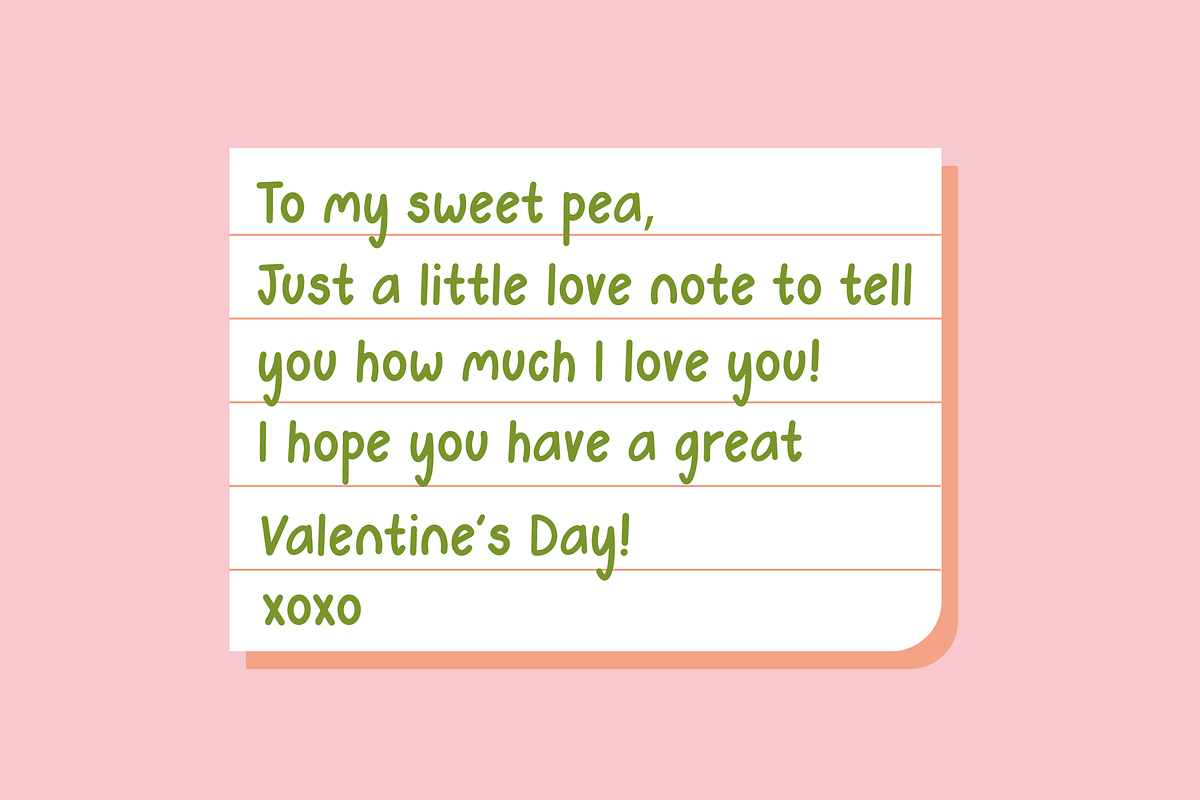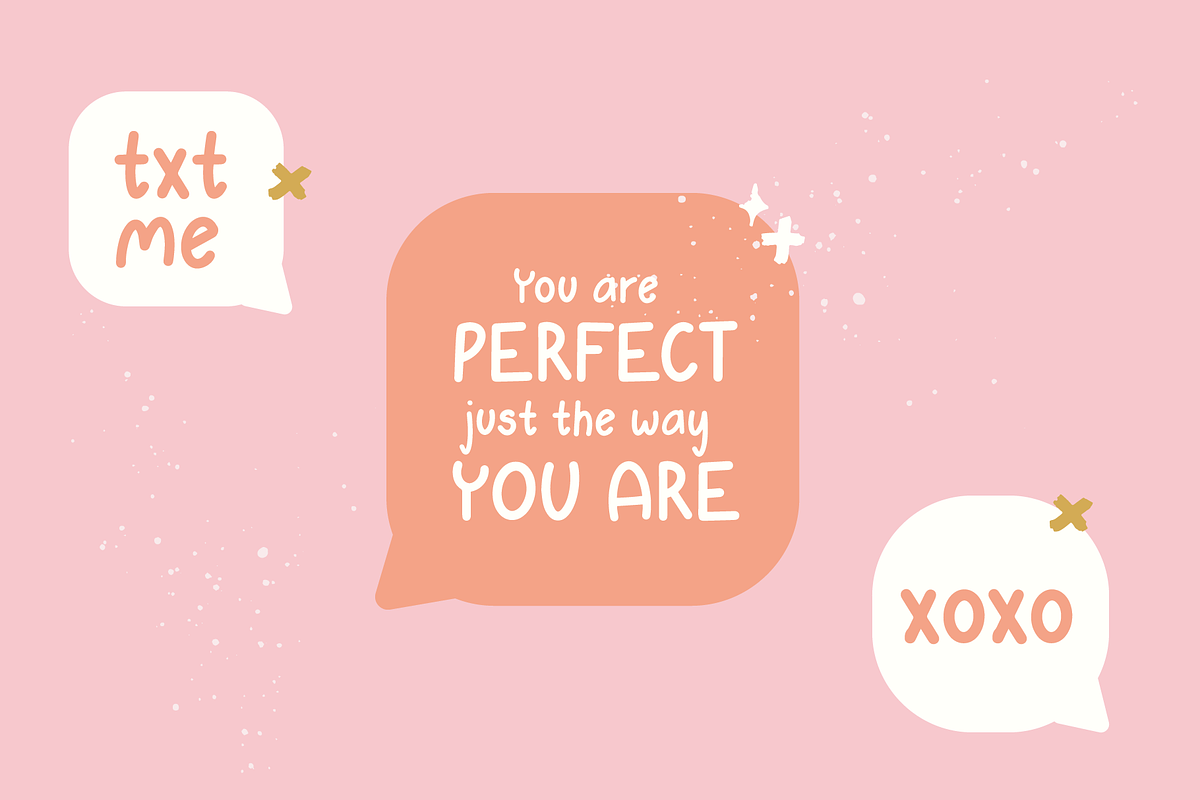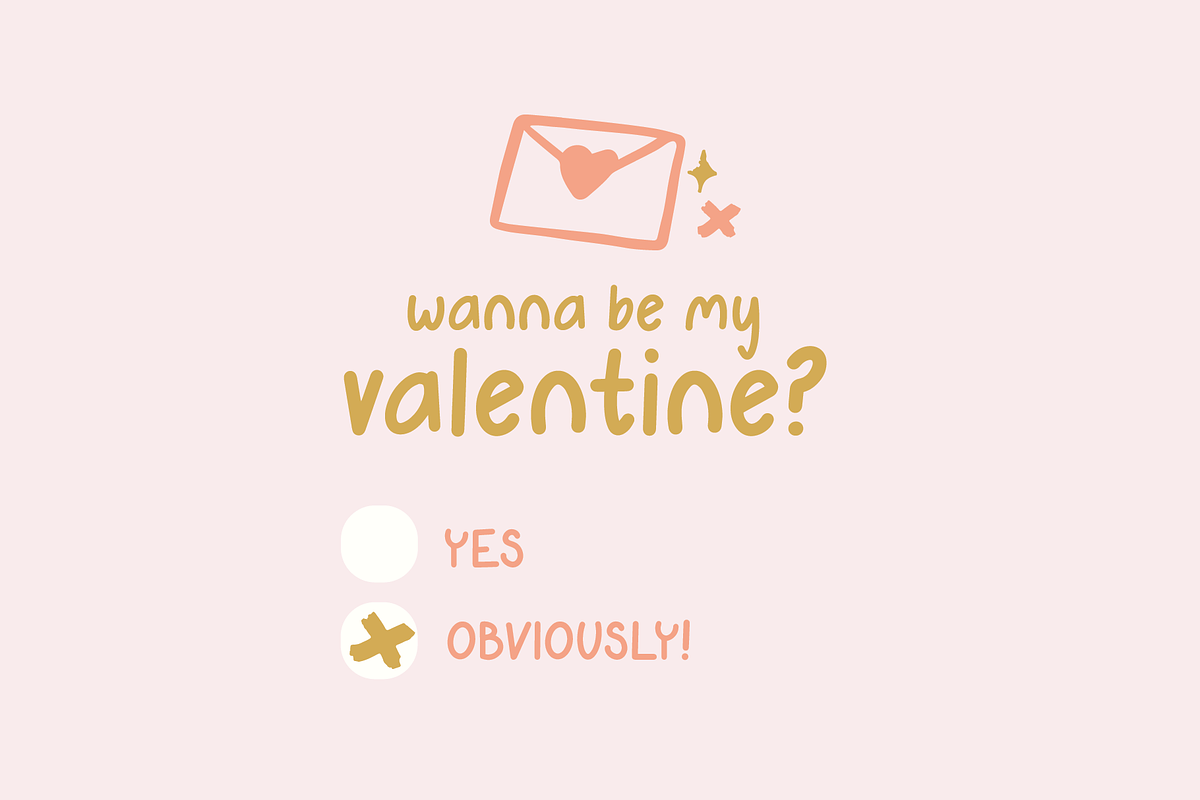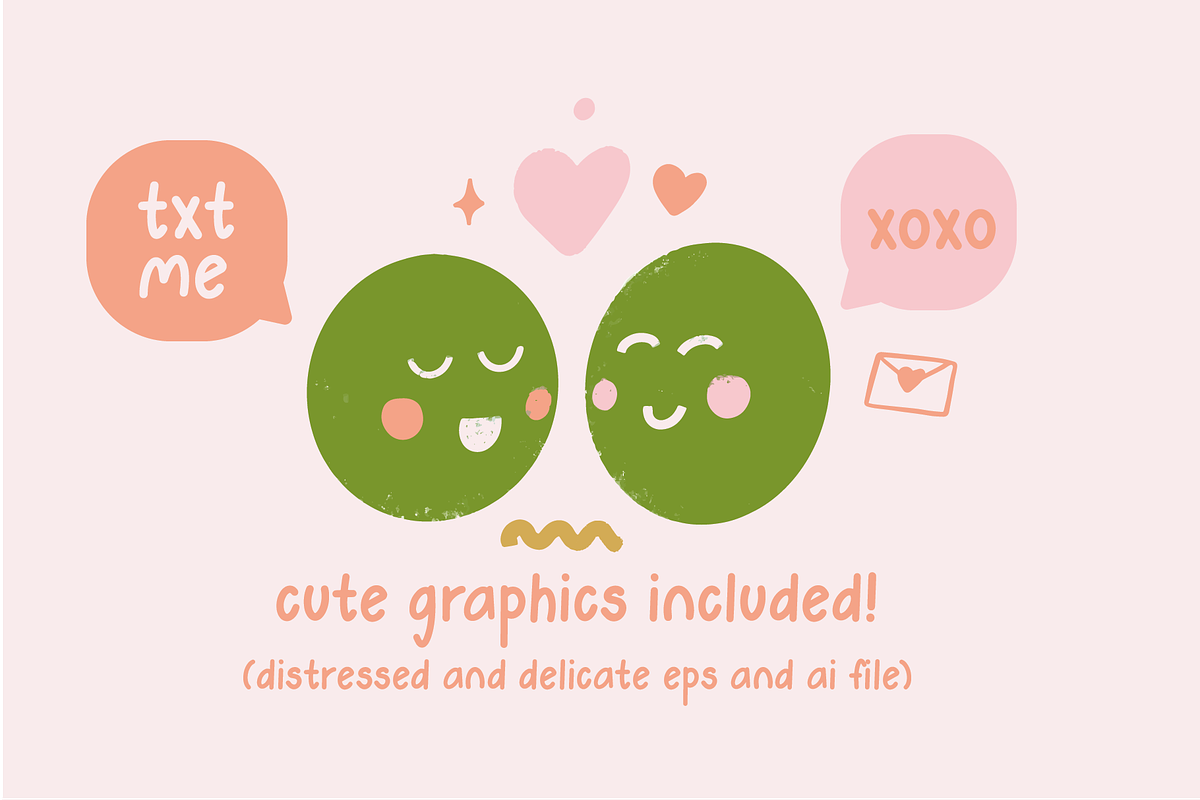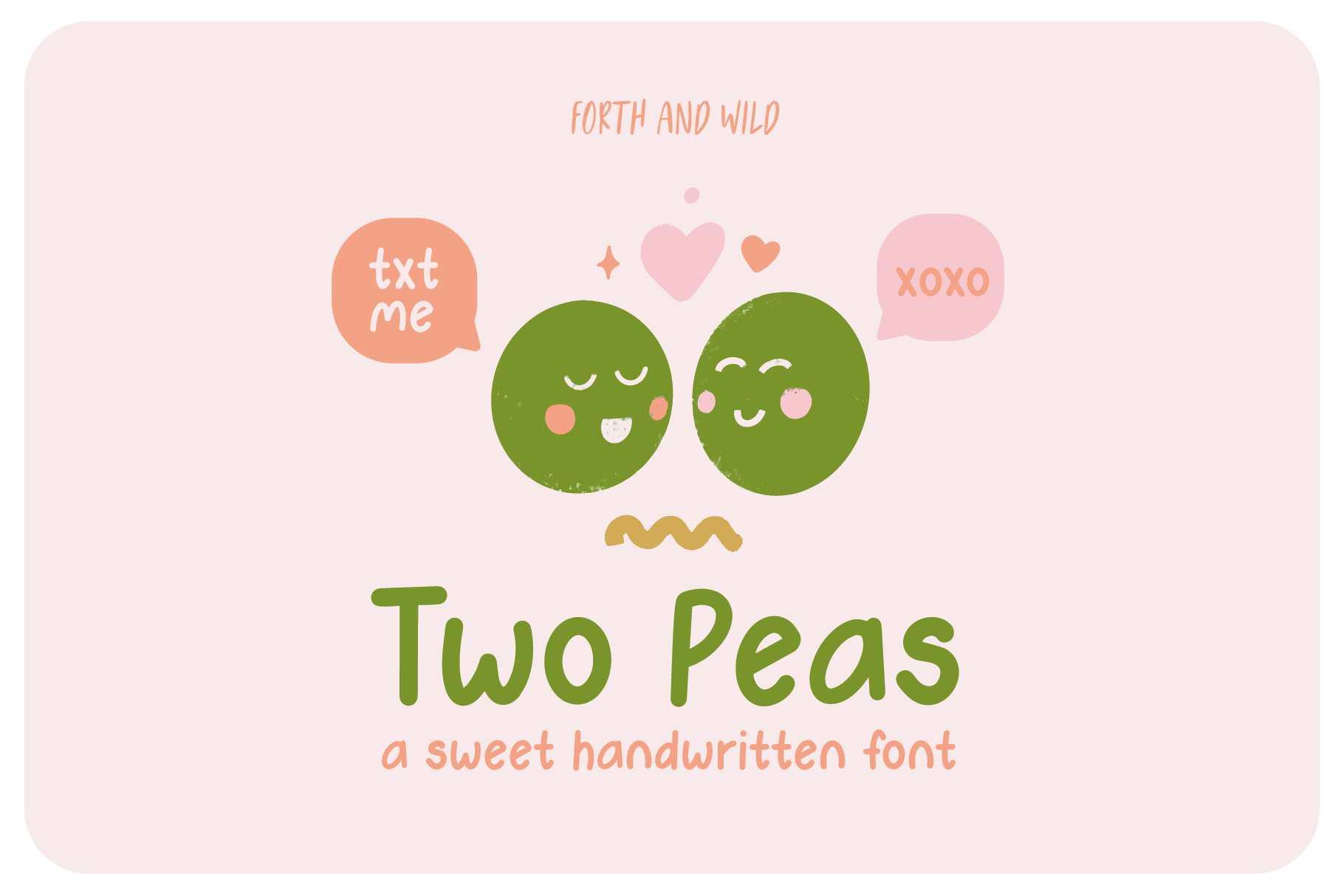
Two Peas Handwritten Playful Font
Two Peas is a playful upper and lowercase font. Perfect for adding a personal touch to your next project or Valentine card. Two peas is a display font that works best for creating logos, quotes to share on Instagram, your digital planner, and more!